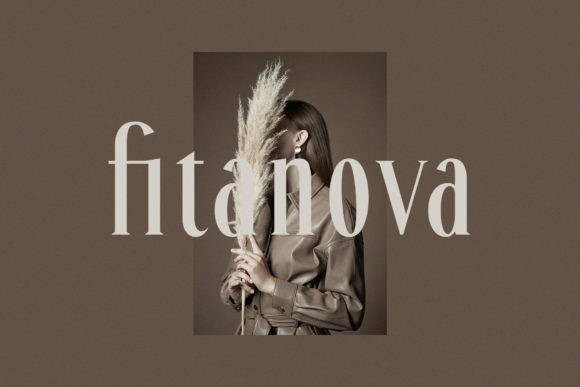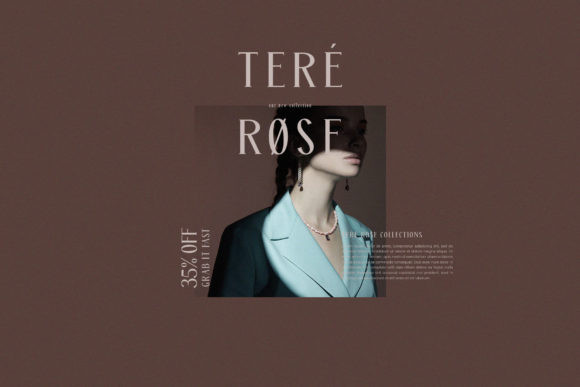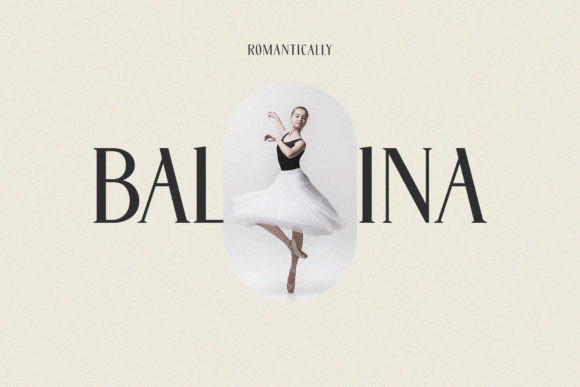
Fitanova Font
Fitanova is a bold and elegant serif font. It is defined by smooth curves and is perfect for fashion branding or editorial designs. Add it confidently to your projects, and you will love the results.